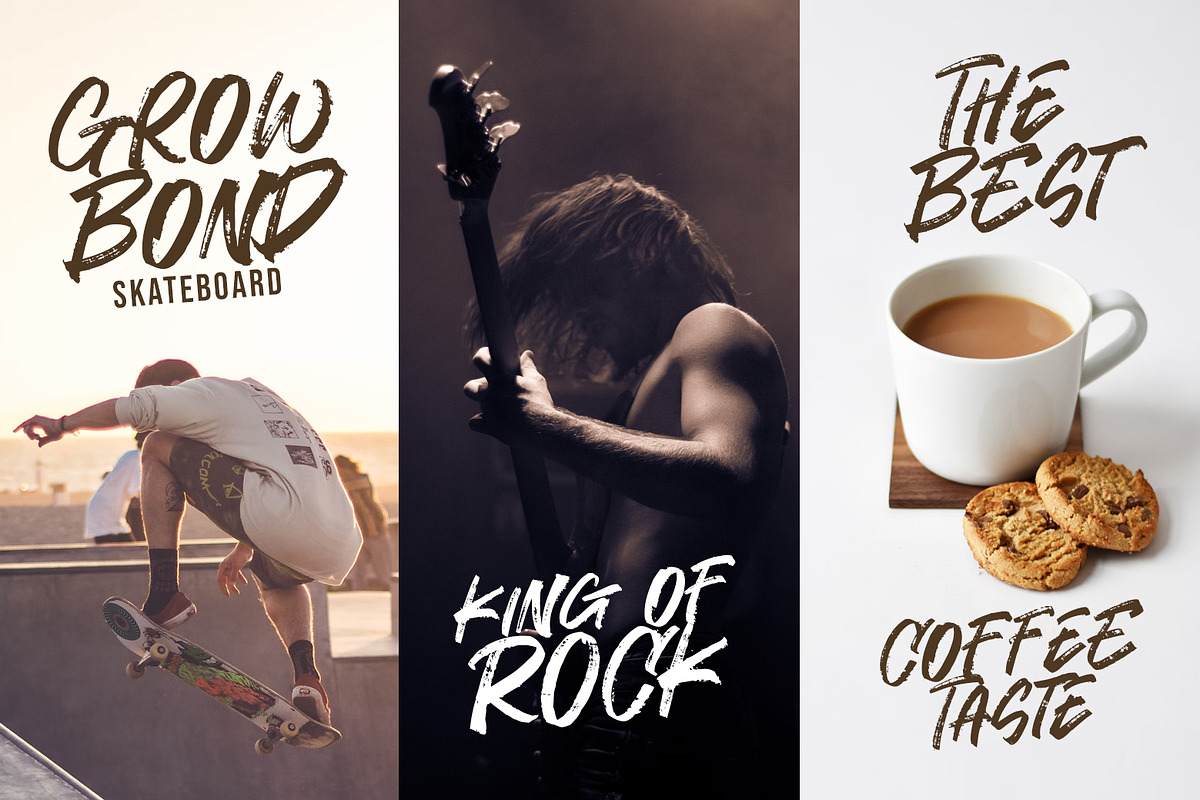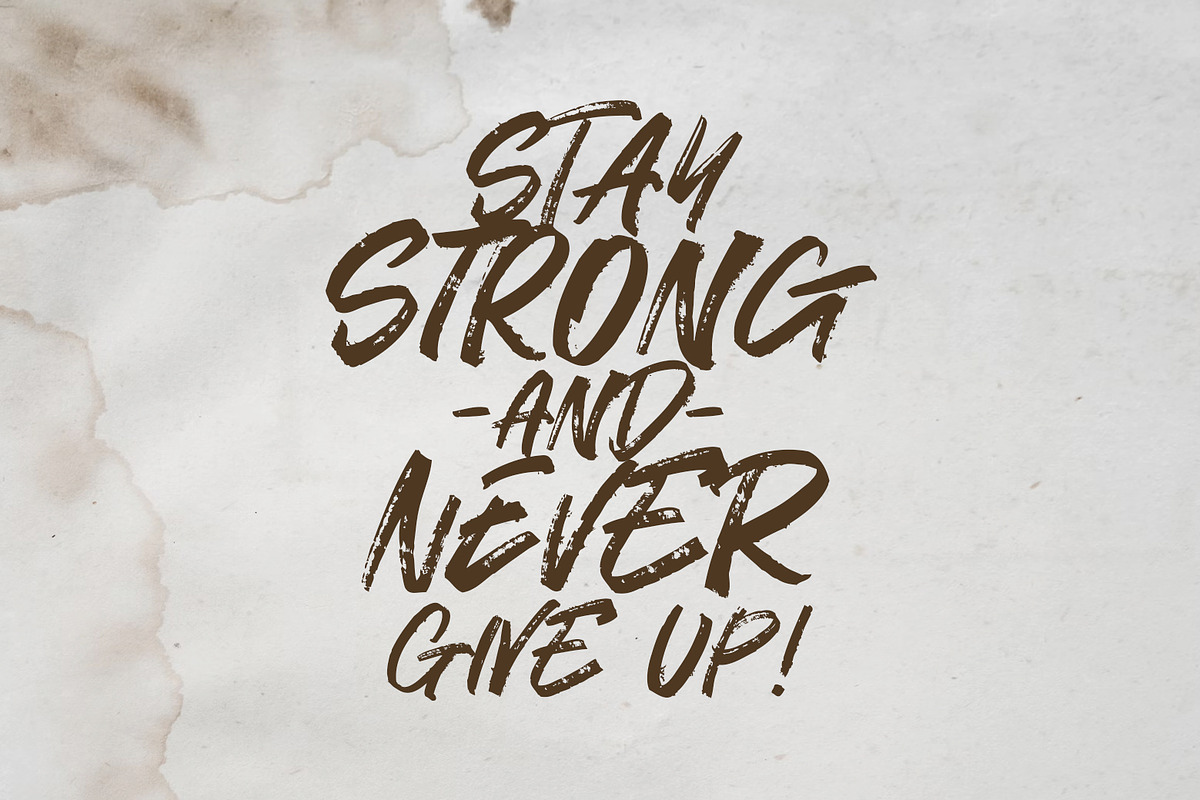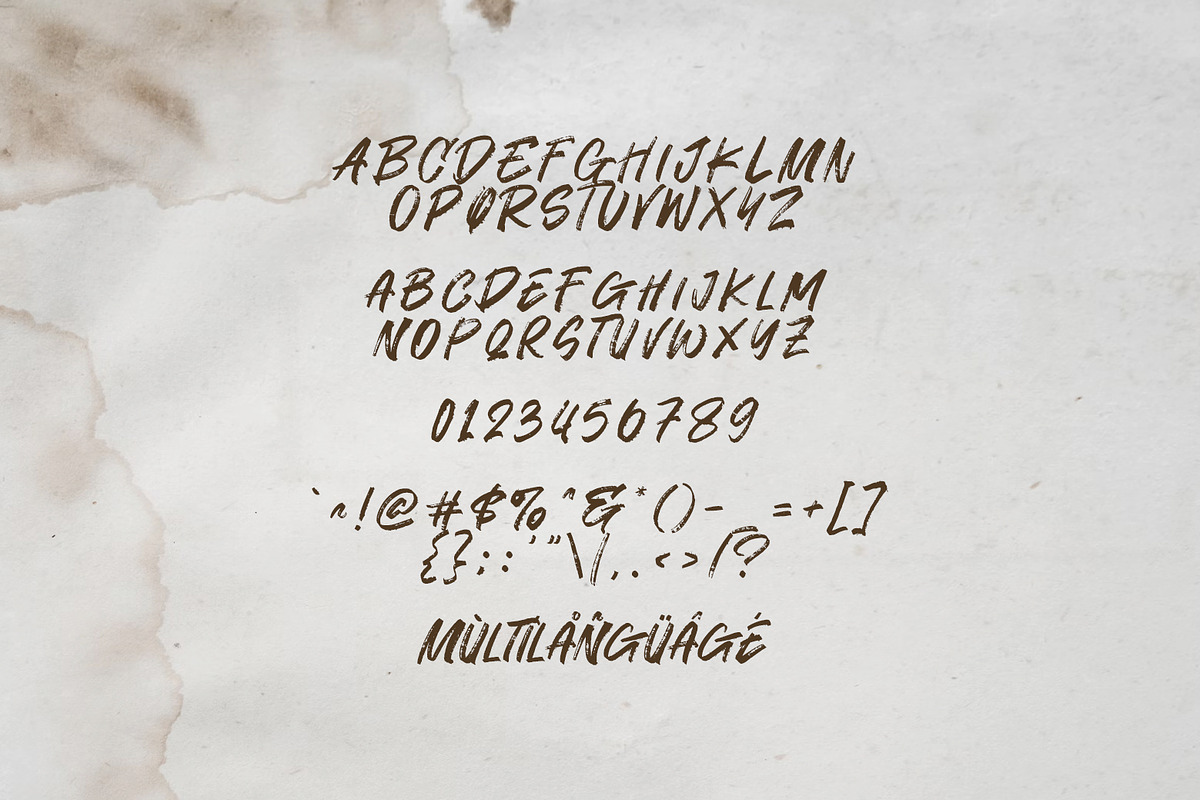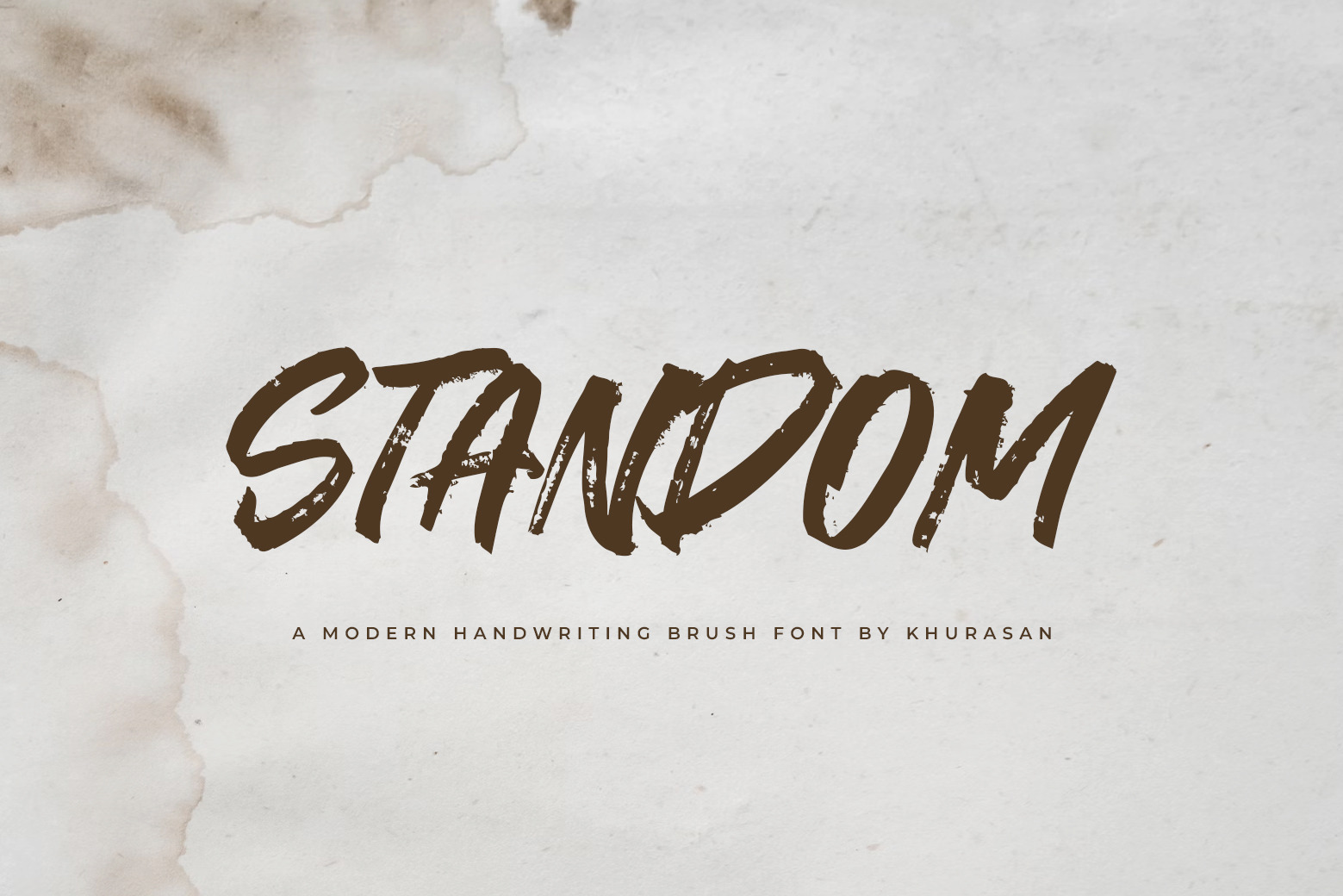
Standom Brush Font
Standom is a modern brush font. Standom font suitable for logo, branding, greeting card, poster and any design that you create…!
Khurasan